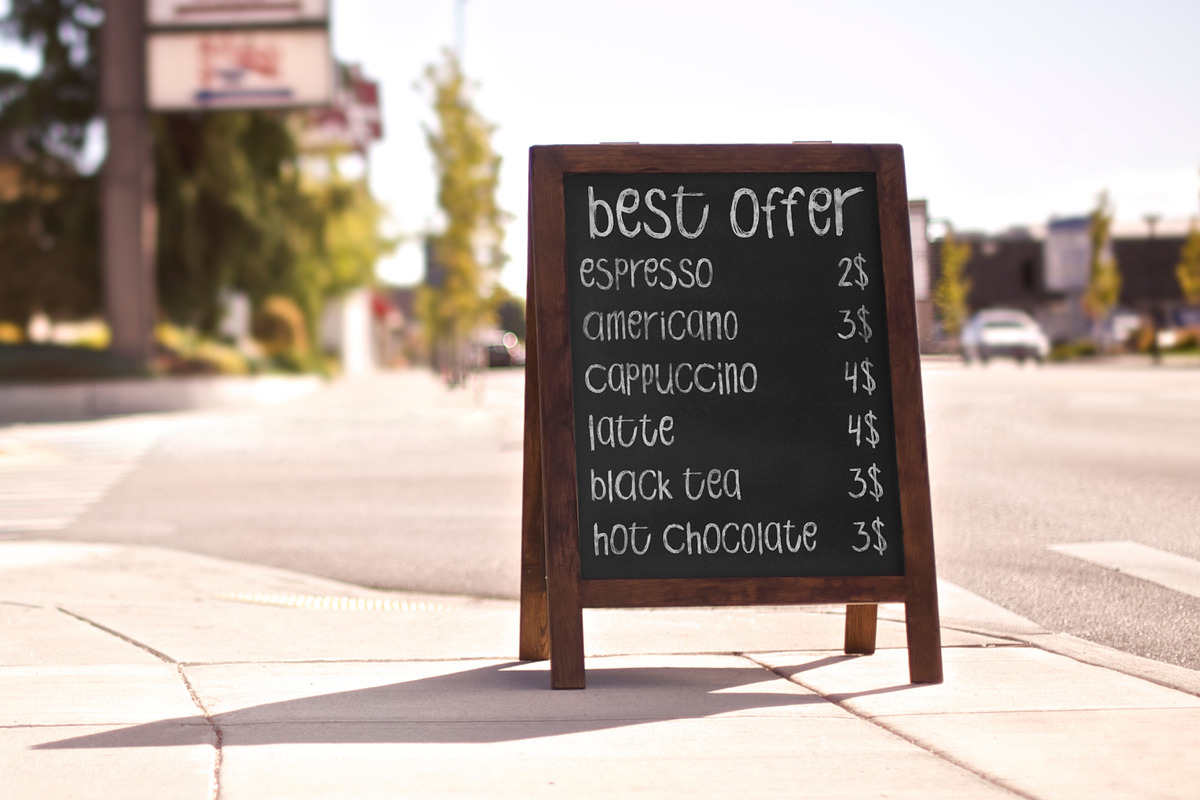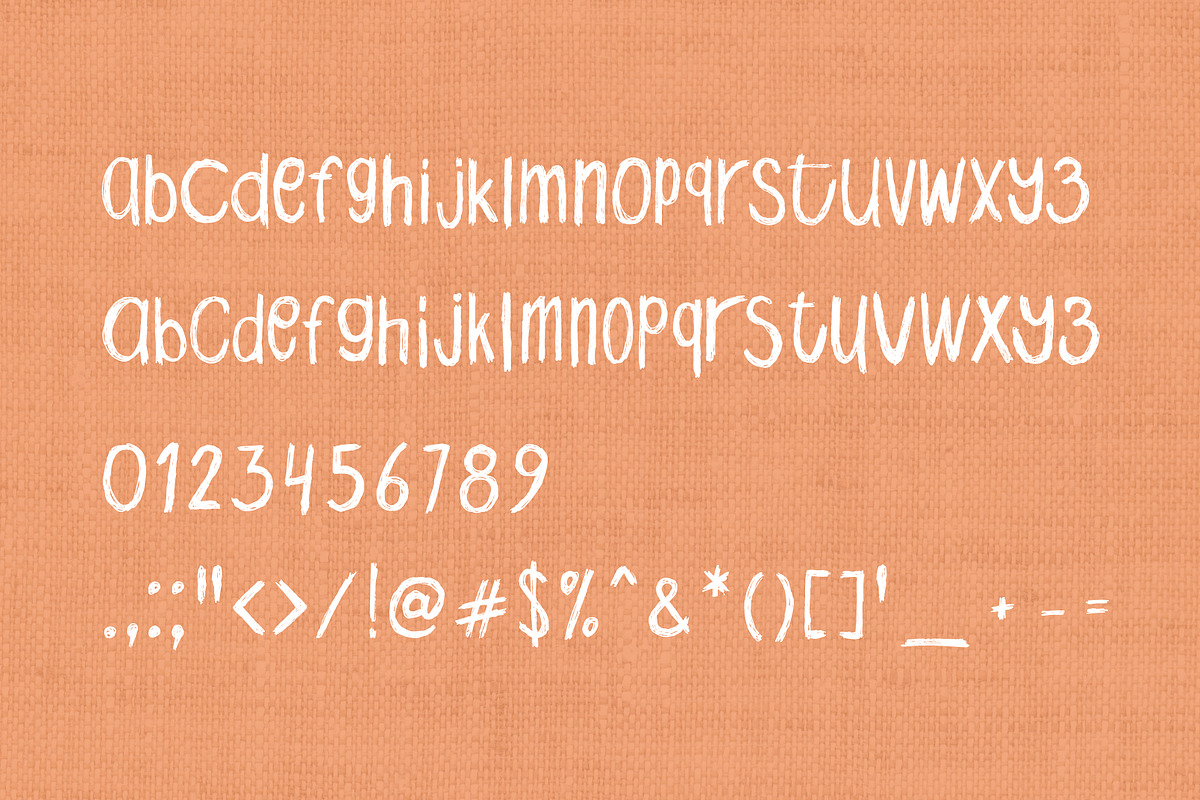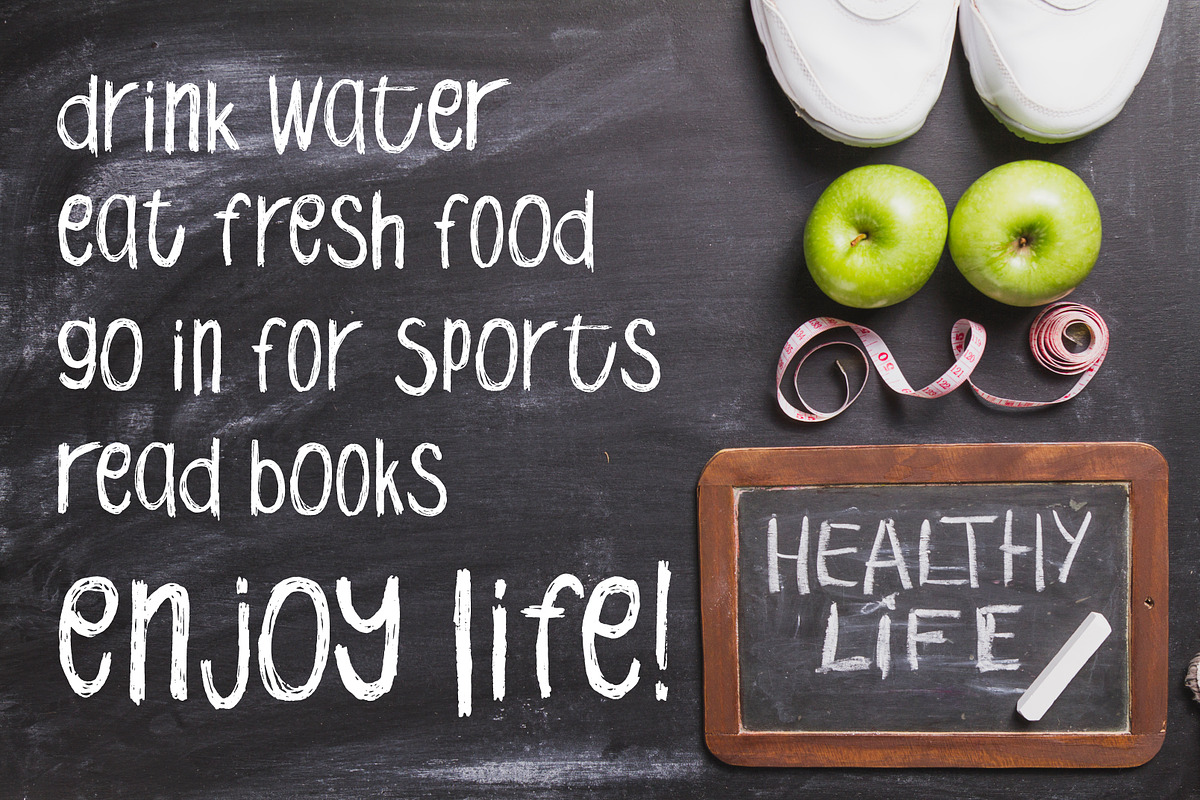
Scratch Handwritten Font
Scratch Handwritten Font by SiDesign is a font selected for branding, posters, packaging, typography.
- Scratch is a simple handwritten all lowercase font.
- It has latin letters, punctuation, numbers and main characters and symbols.
- Each letter comes in two forms via uppercase letter, so you work can have even more naturally handwritten look.
Scratch Handwritten Font by SiDesign fits naturally into Branding, posters, packaging, typography.